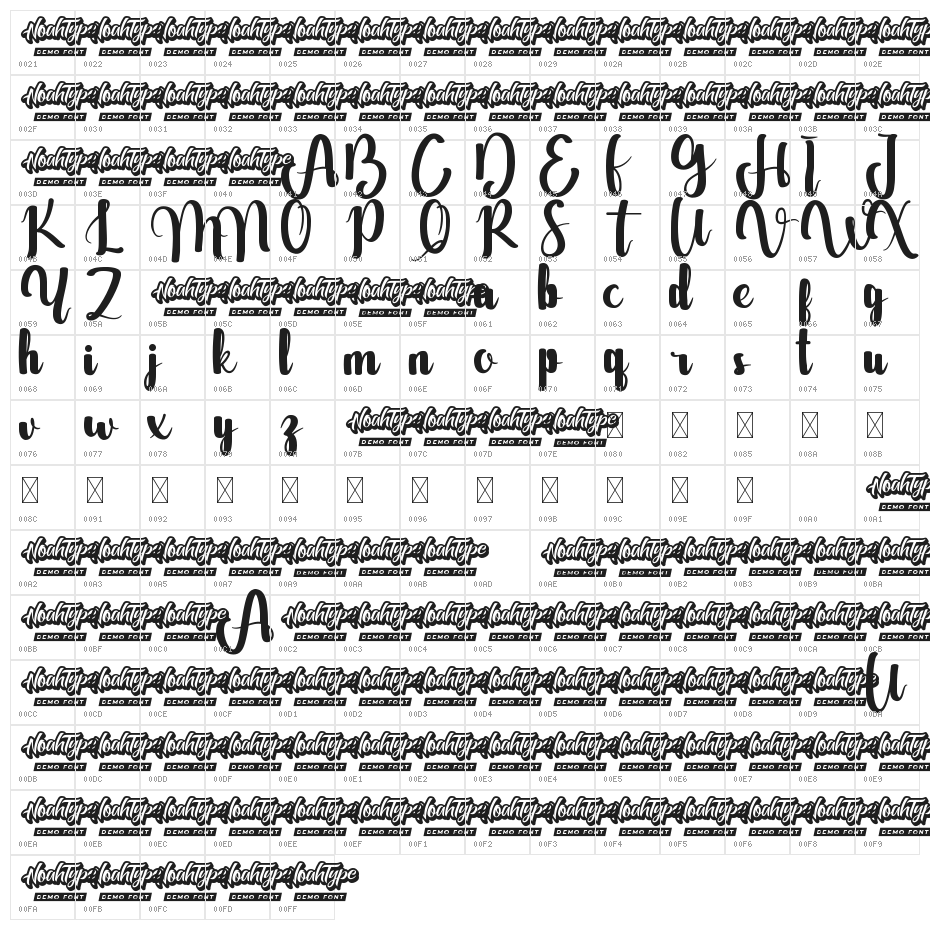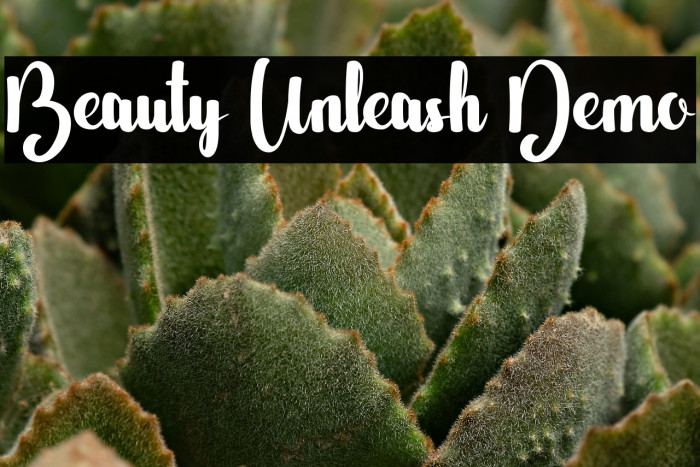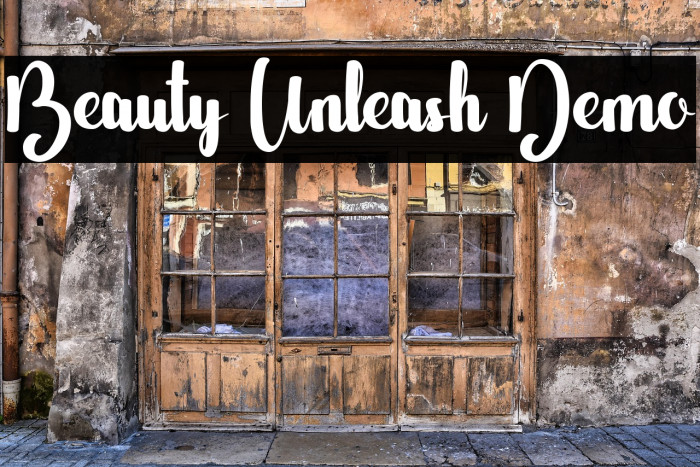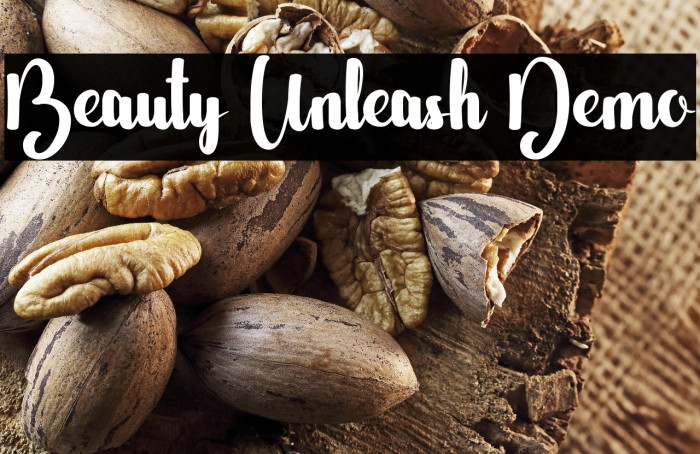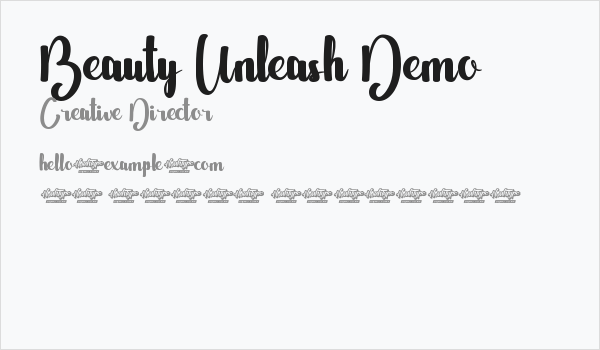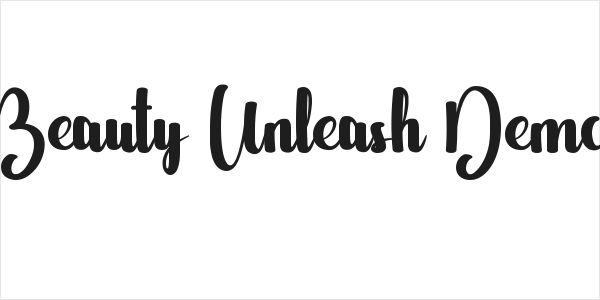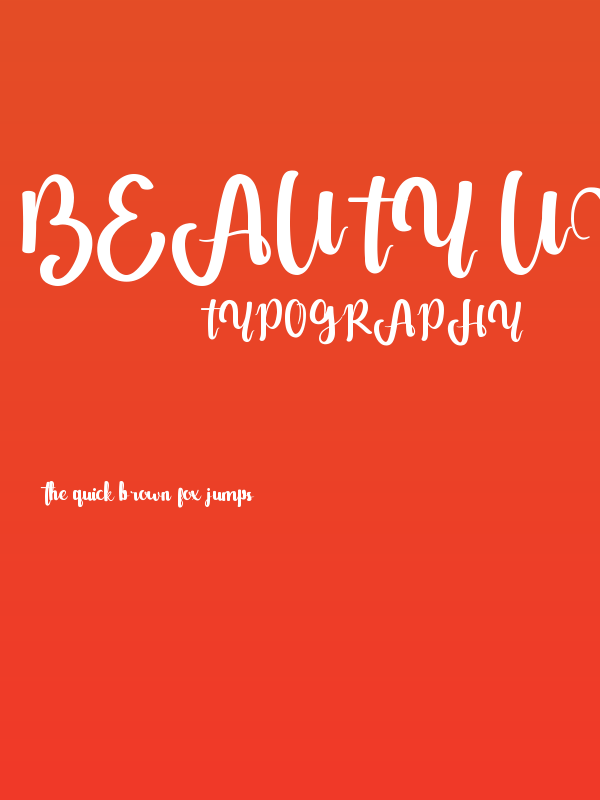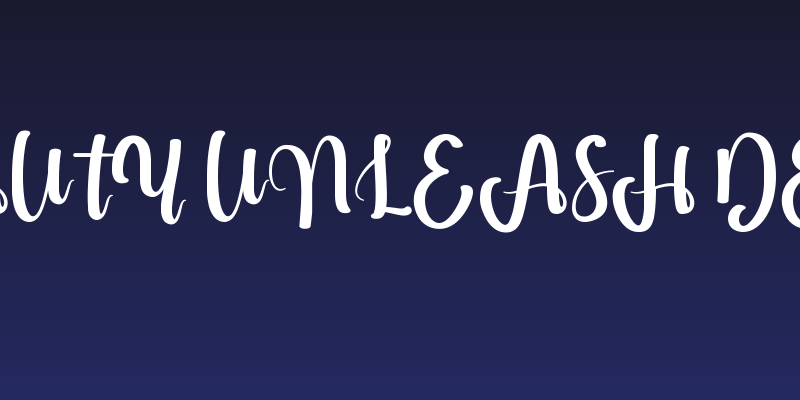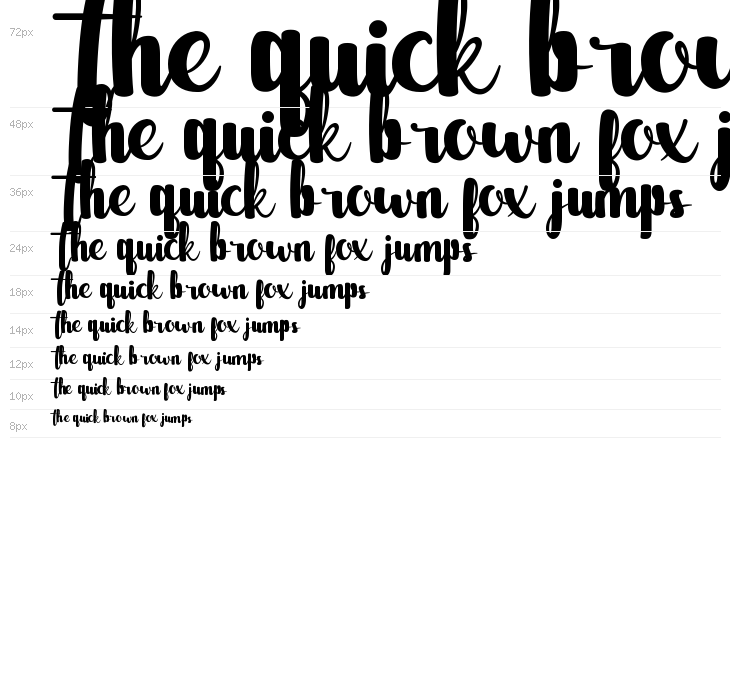
Beauty Unleash Demo Font
Beauty Unleash Demo Description
This font exhibits a bold and expressive style with a handwritten flair. The uppercase letters are characterized by smooth, flowing lines and a slight slant, giving them a dynamic and elegant appearance. The lowercase letters maintain a consistent thickness, contributing to a cohesive look. The font includes a variety of special characters, enhancing its versatility. Its bold strokes and artistic curves make it suitable for creative and decorative applications. The overall design is modern yet retains a touch of classic calligraphy, making it ideal for projects that require a personal and artistic touch.